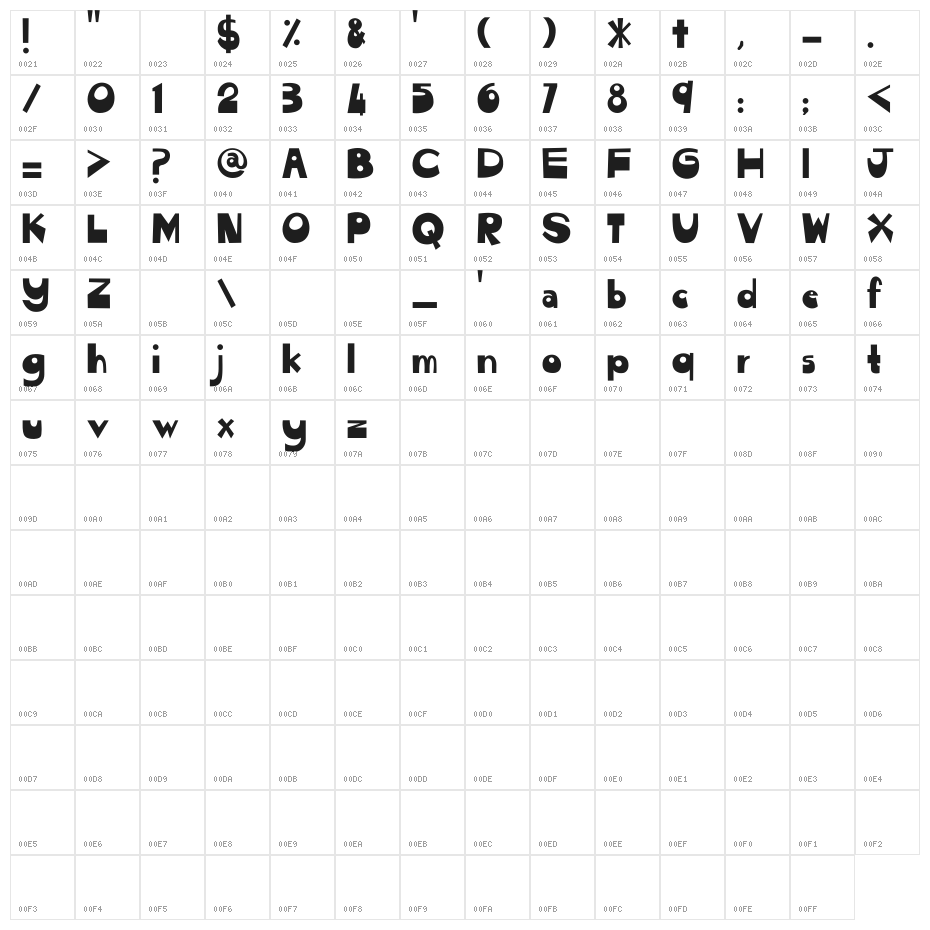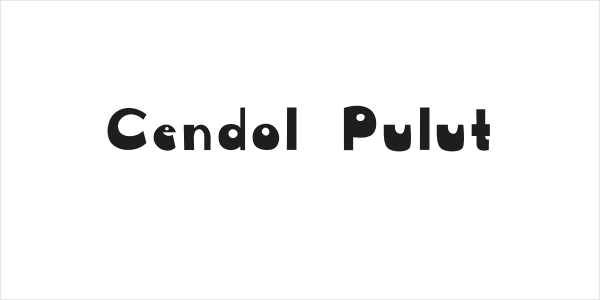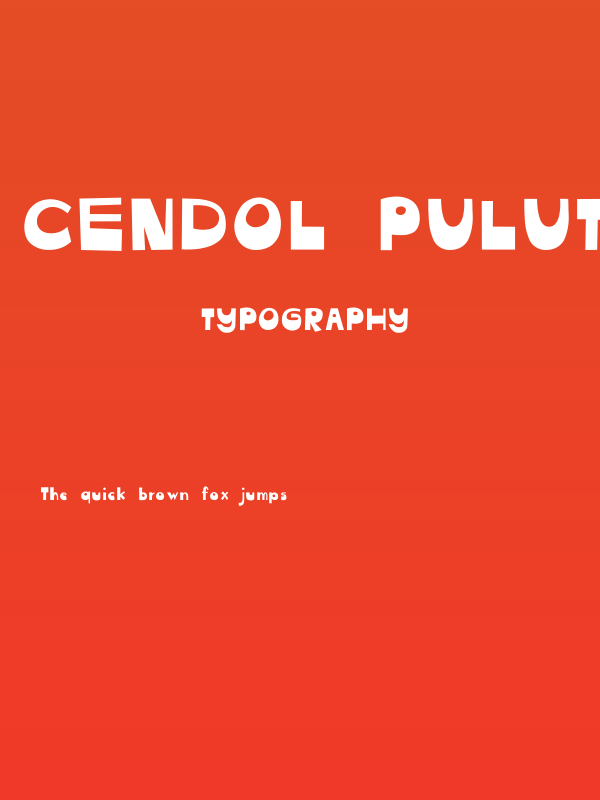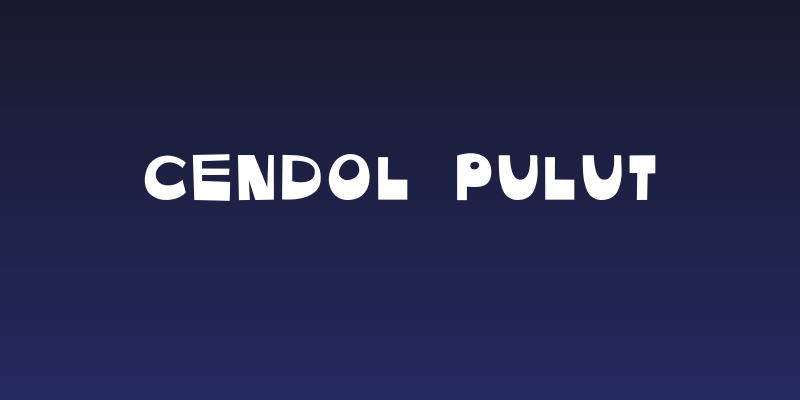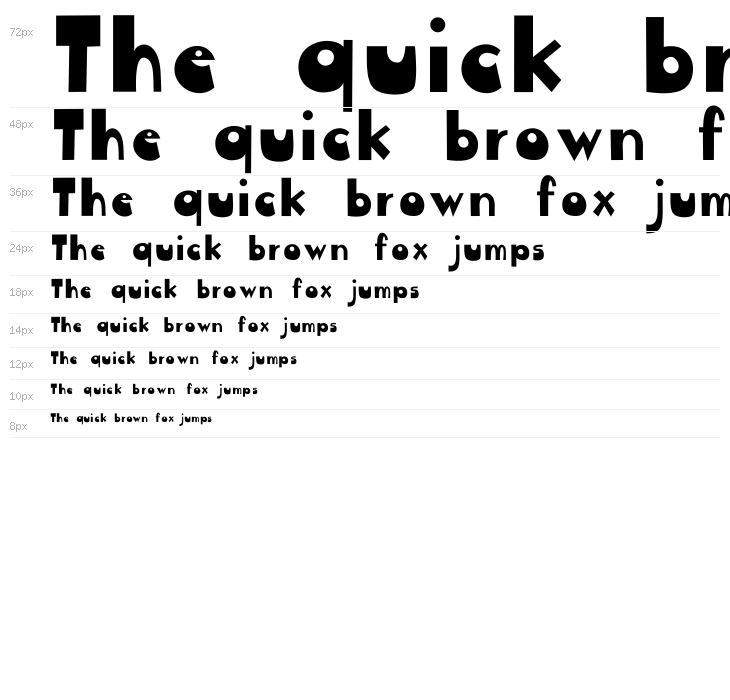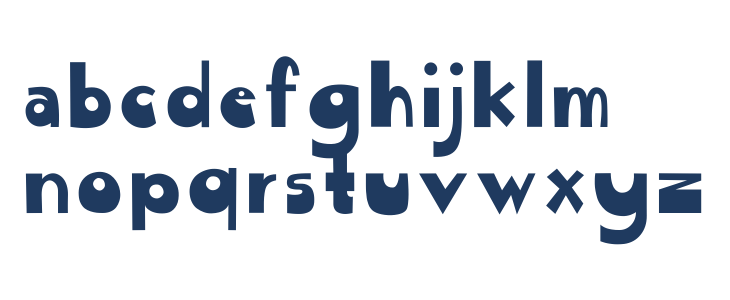
Cendol Pulut Font
Cendol Pulut Description
This font features a bold and playful design with a distinctly modern flair. The uppercase letters are characterized by their geometric shapes and unique cut-out details, giving them a quirky and eye-catching appearance. The lowercase letters maintain a similar style, with rounded edges and a slightly whimsical touch. The numerals are bold and consistent with the overall style, ensuring readability while maintaining the font's playful nature. Special characters are creatively designed, adding to the font's decorative appeal. This font is perfect for projects that require a fun and engaging look.
| Proposed Projects | Ideal for children's books, playful branding, posters, and creative advertising. |